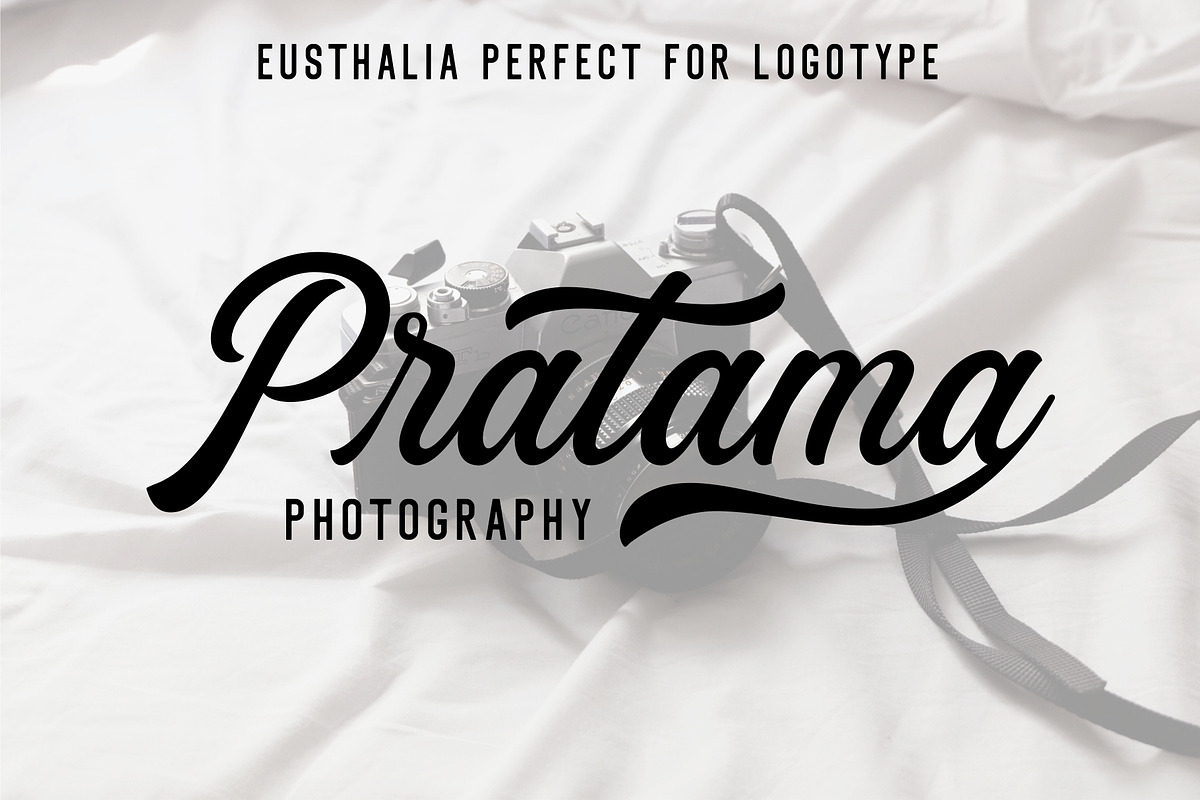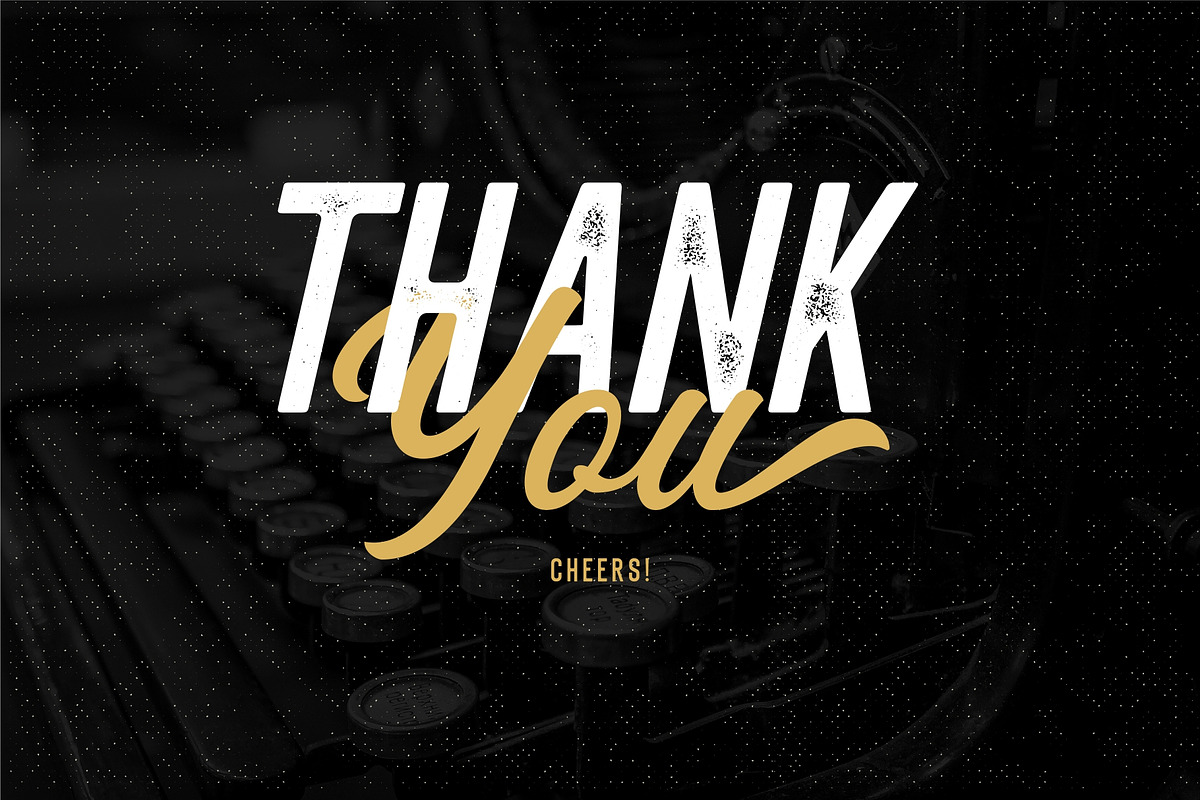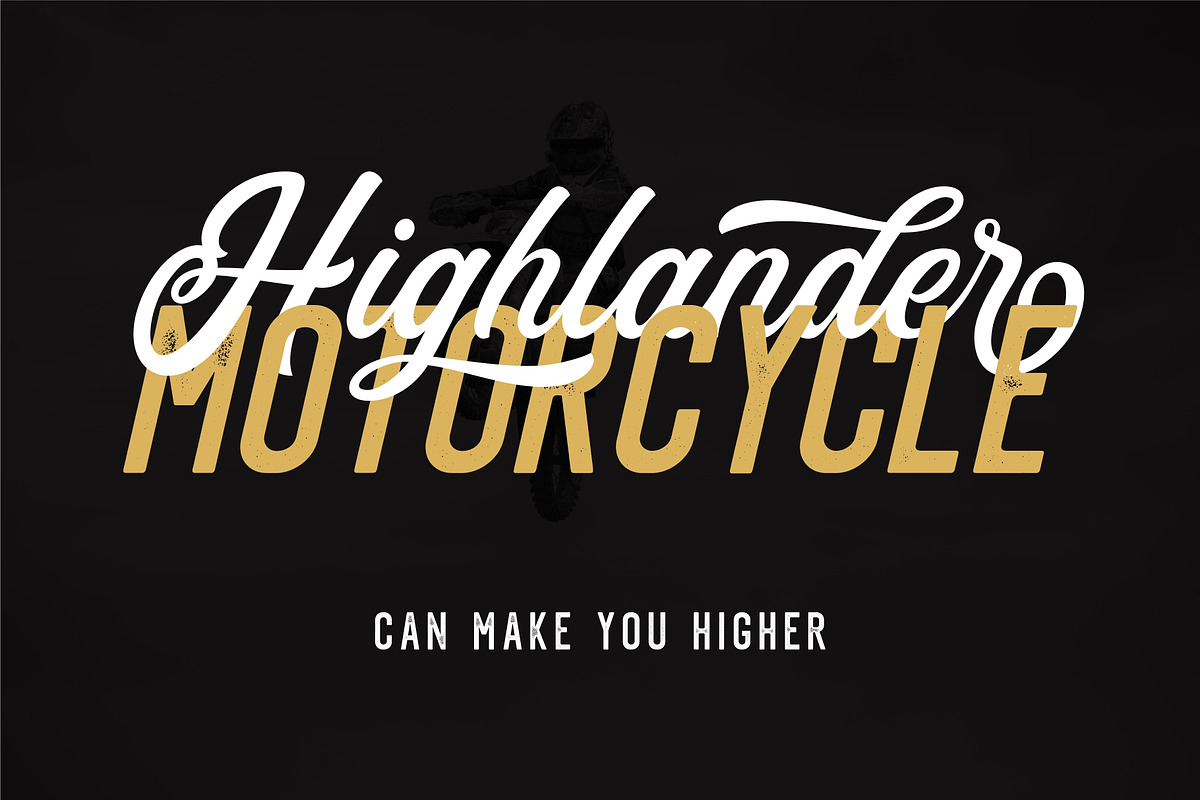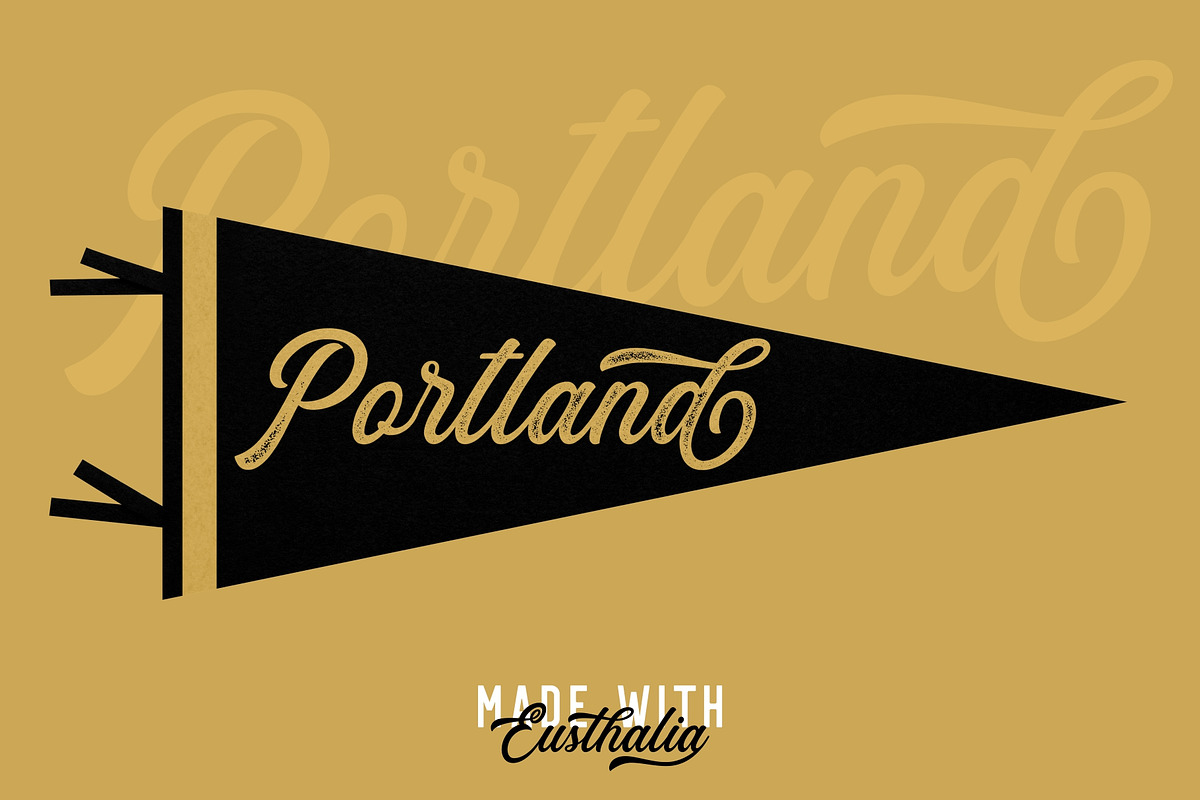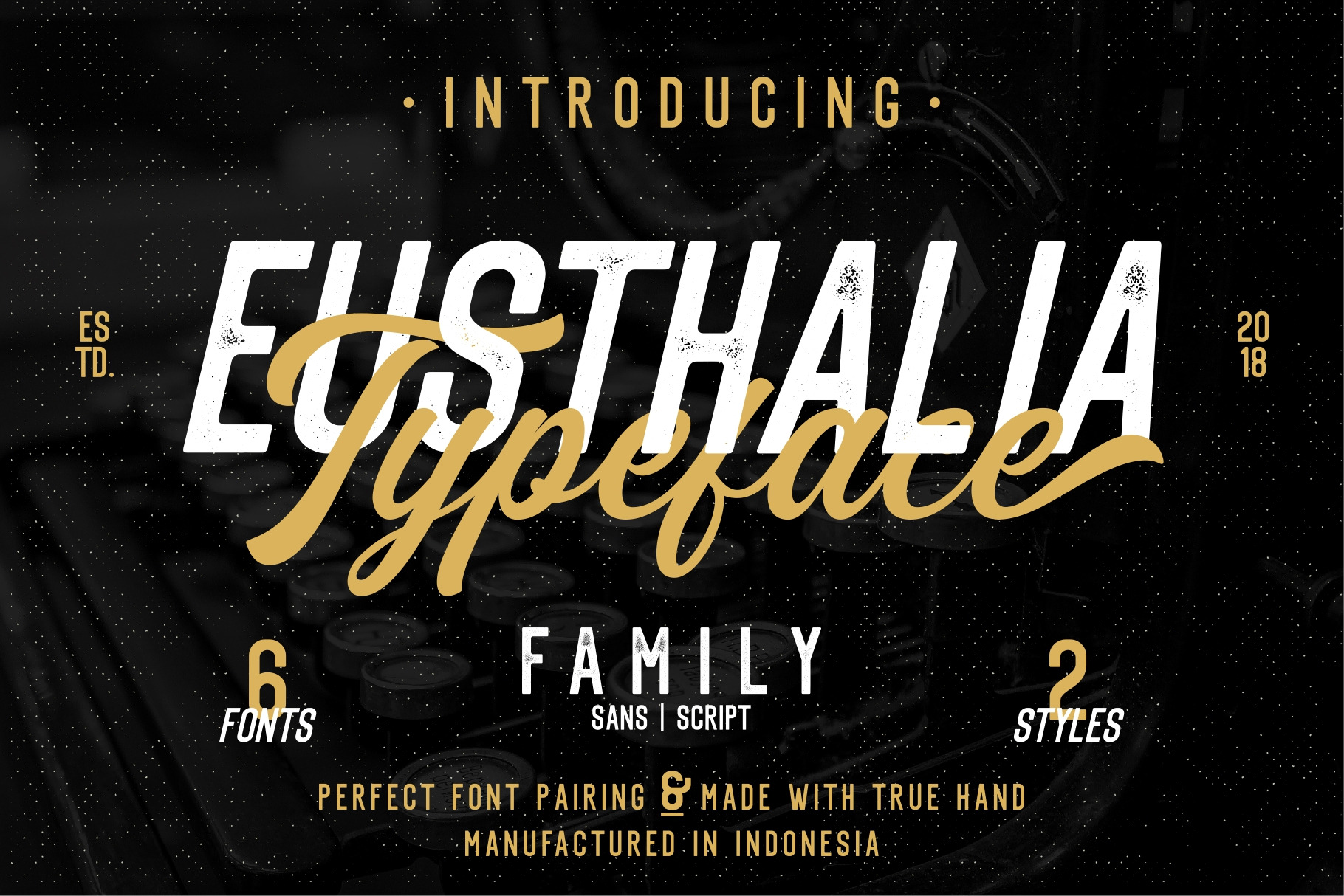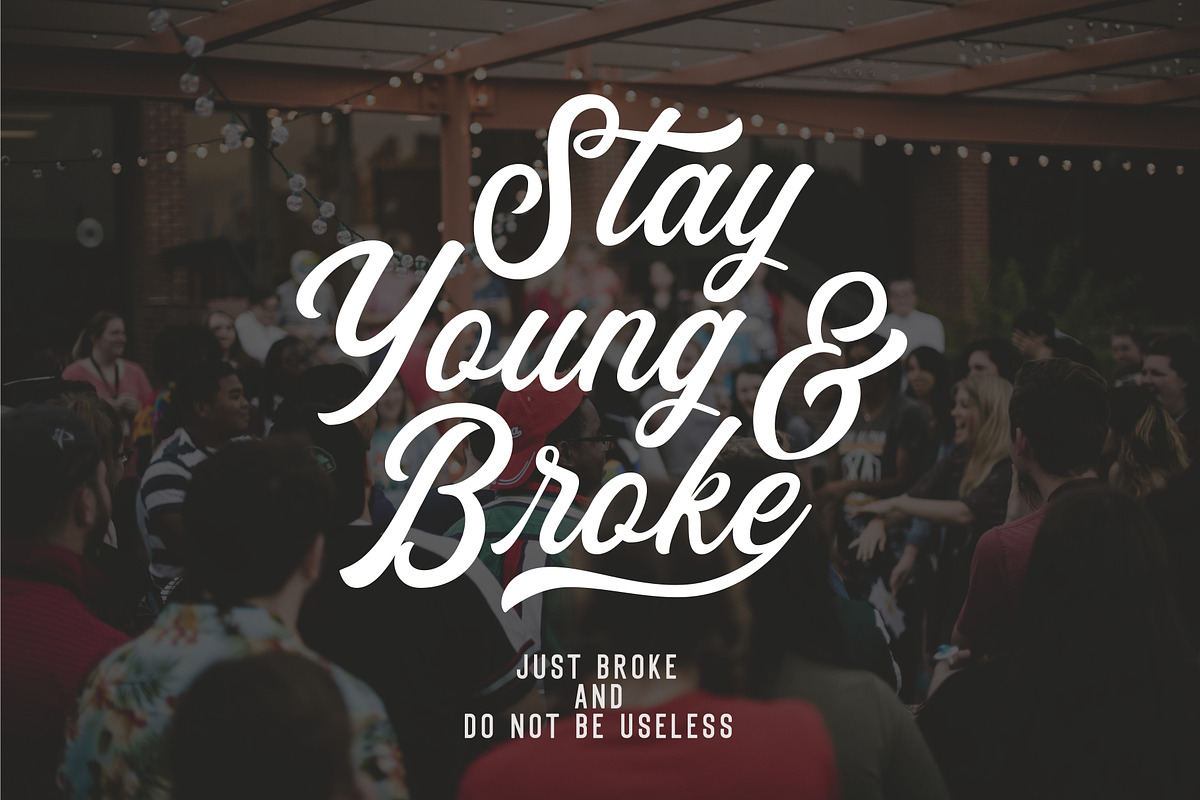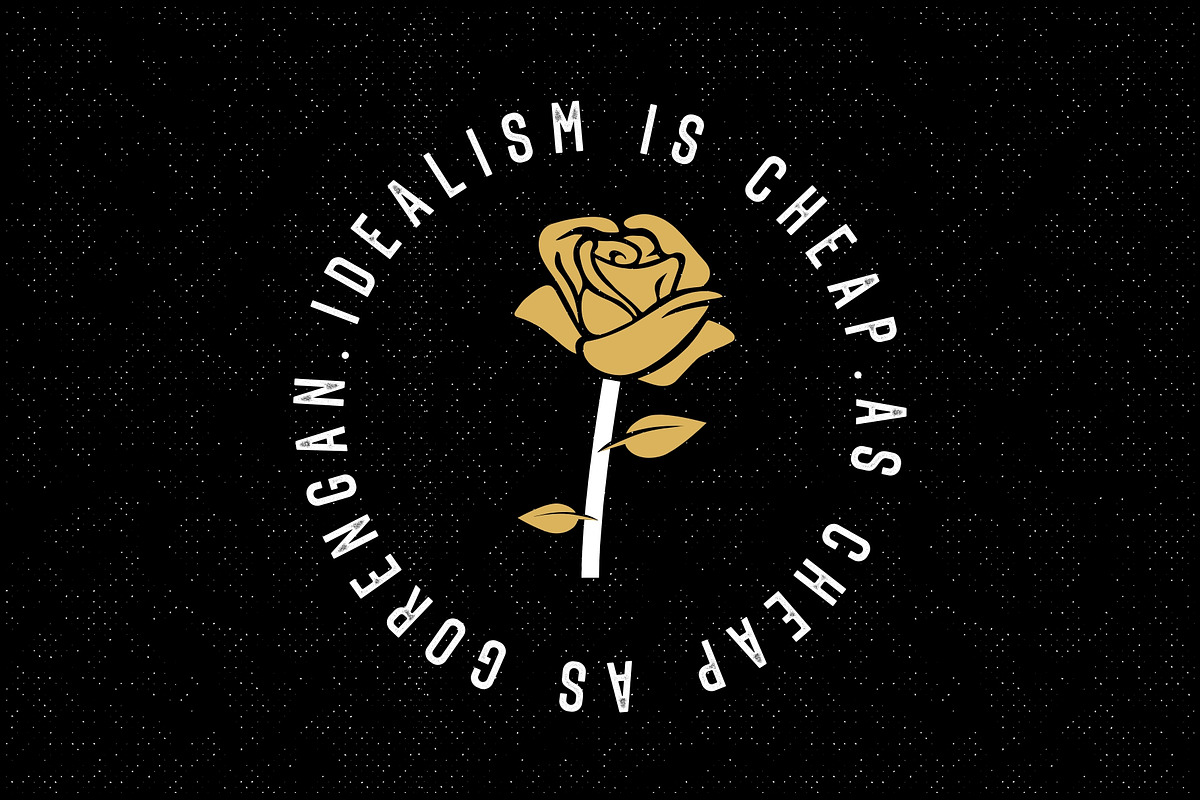
Eusthalia Typeface Family (6 Fonts)
Hello brother and sister! Eusthalia Typeface comes with Sans version (Eusthalia Typeface Family). Eusthalia Typeface is a font which has two styles, Clean and Stamped. With those kind of styles, Eusthalia Typeface can be use in vintage designs. Eusthalia Typeface also has a standart Multilingual Support (Script version).
Eusthalia Typeface is great for Logotype, Branding Design, Logo Design, Digital Lettering Arts, T-Shirt/Apparel, Poster, Magazine, Signs, Advertising Design, and any vintage design needs.
Eusthalia Typeface Features :
- Upper and Lowercase Standard Characters, Punctuation, Numerals.
- Opentype Features such as Standard Ligature, Contextual Alternates and Stylistic Set (ss01 - ss07).